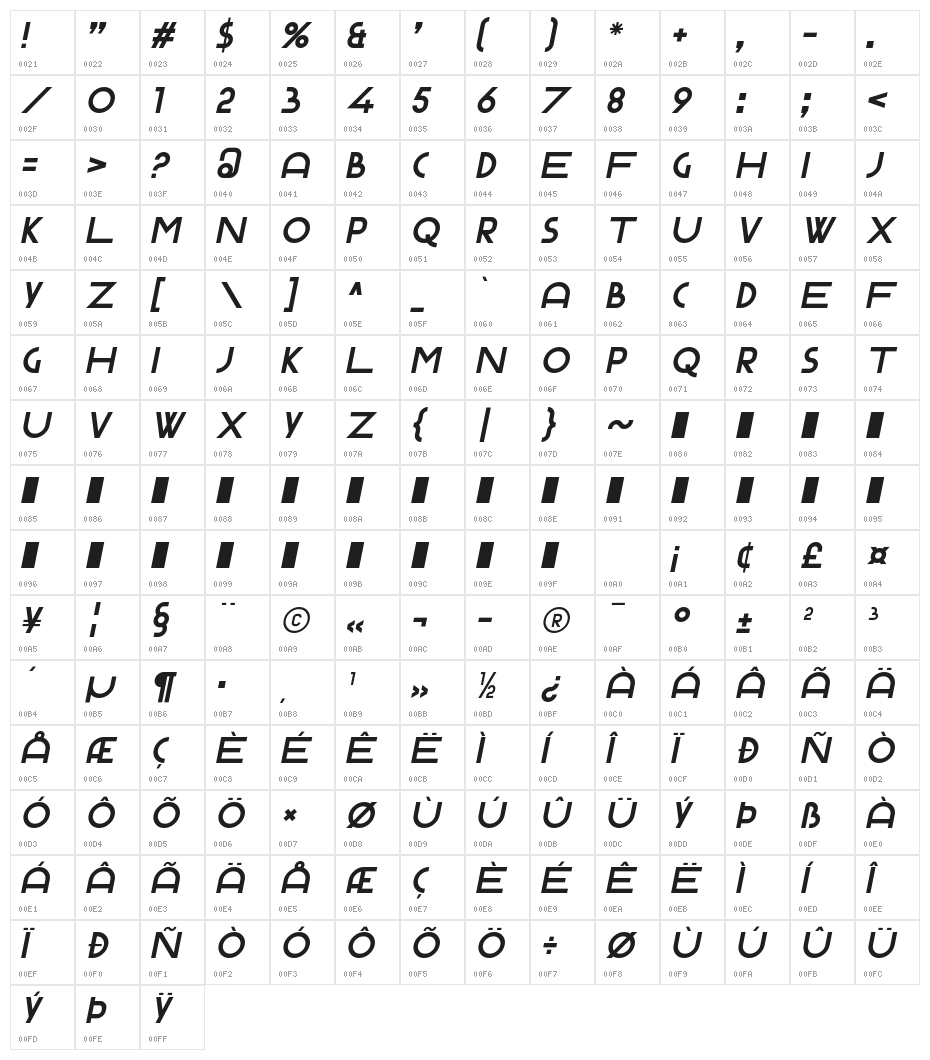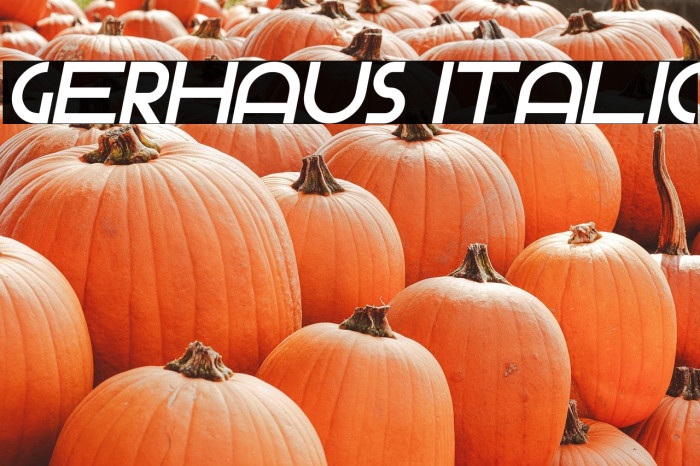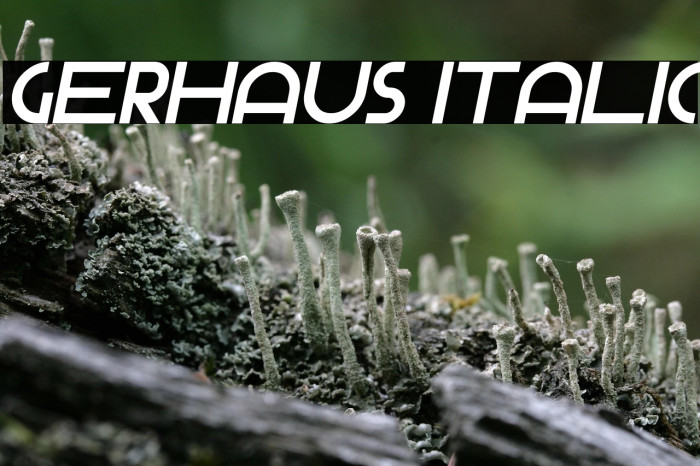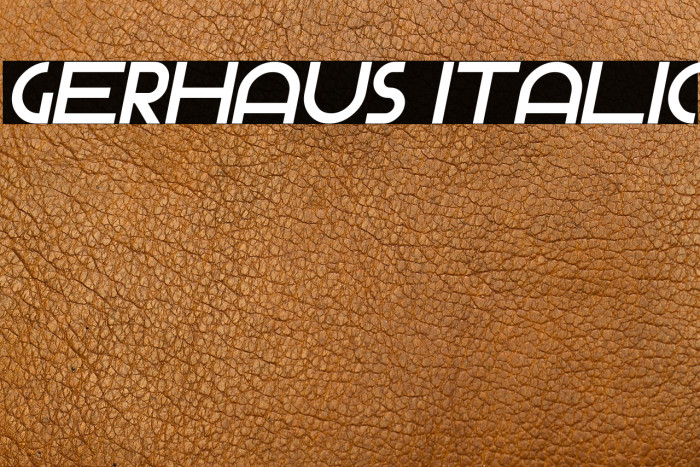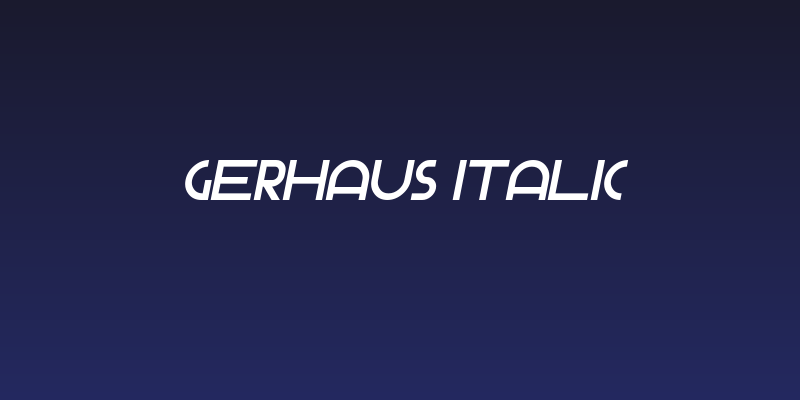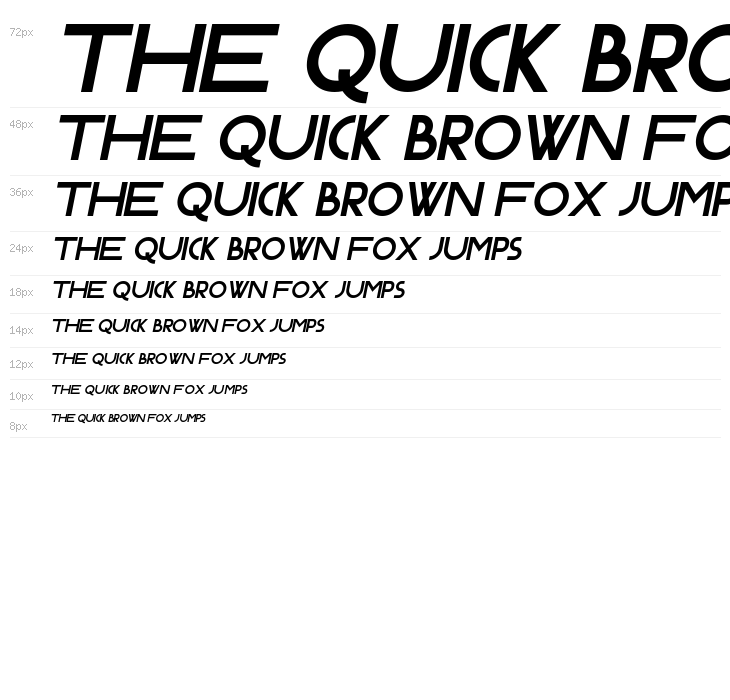
Gerhaus Italic Font
Gerhaus Italic Description
This font features a dynamic and modern italic style, characterized by its forward-leaning posture and clean, sharp edges. The uppercase letters are bold and impactful, while the lowercase letters maintain a consistent slant, enhancing readability. The numerals are distinct and well-proportioned, complementing the overall aesthetic. Special characters are crafted with precision, maintaining the font's sleek and contemporary feel. The design is versatile, suitable for a variety of digital and print applications, offering a professional yet stylish appearance.
| Use Case | Headlines, Logos, Digital Media |
| Proposed Projects | Ideal for branding, advertising, digital media, and editorial design projects. |